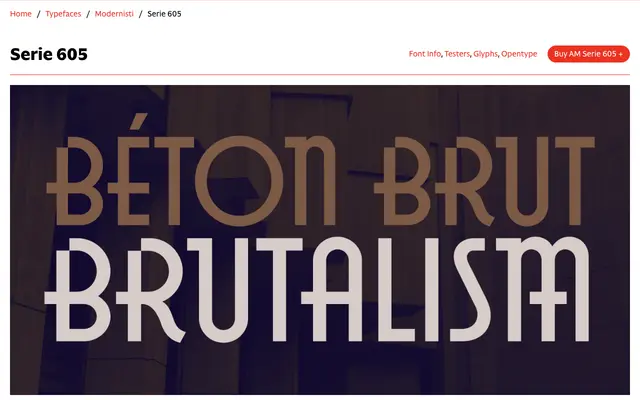
AM Serie 605
CAST · Alessandro Bombieri · 2024
displaygeometric sans
AM Serie 605 specimen from CAST
A digital revival of a Milanese wood type from 1938-40, retaining Art Deco geometry and decorative stem extensions while adding optical refinements and OpenType alternates.
Originally produced by the Xilografia Milanese between 1938 and 1940, Serie 605 is an all-caps geometric sans with circular C, G, O and Q forms contrasting against otherwise condensed letters, cut corners on B, D, P and R, and horizontal strokes extending from central bars and stems. Designer Alessandro Bombieri standardised the stem extensions, introduced optical overshoots and added narrow alternates for the wide circular letters. Two stylistic sets allow switching between the distinctive extended strokes and cleaner, more restrained forms.
An all-caps geometric sans with Art Deco characteristics, originally a 1930s wood type revival. The decorative horizontal strokes, pixel-like corner cutouts and circular O forms place it firmly in the display category despite its geometric sans structure.